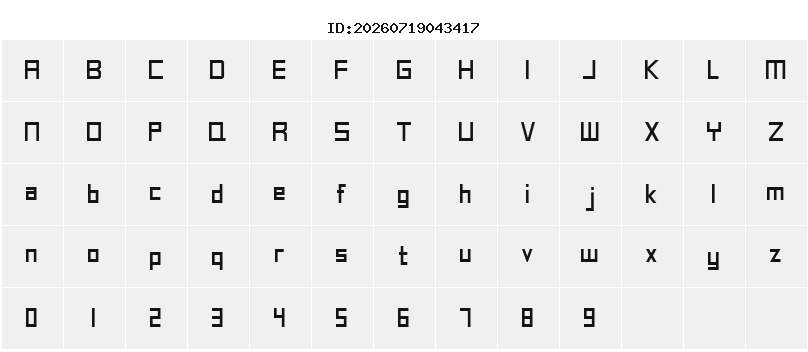
• Font Name: Cone
• Full Font Name: Cone
• PostScript Name: Cone
About Cone.ttf
Cone.ttf is a modern, elegant sans-serif font designed for ultimate readability and visual harmony. Perfect for branding, headlines, web design, and print materials.